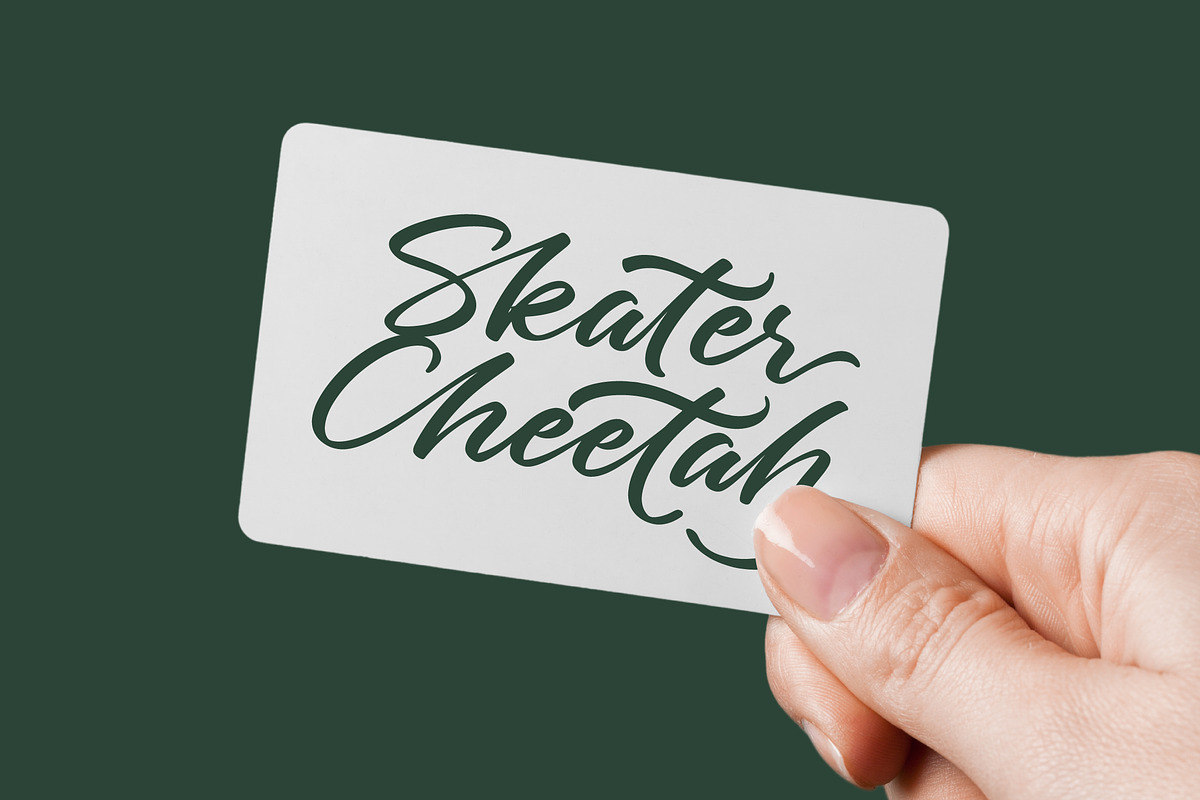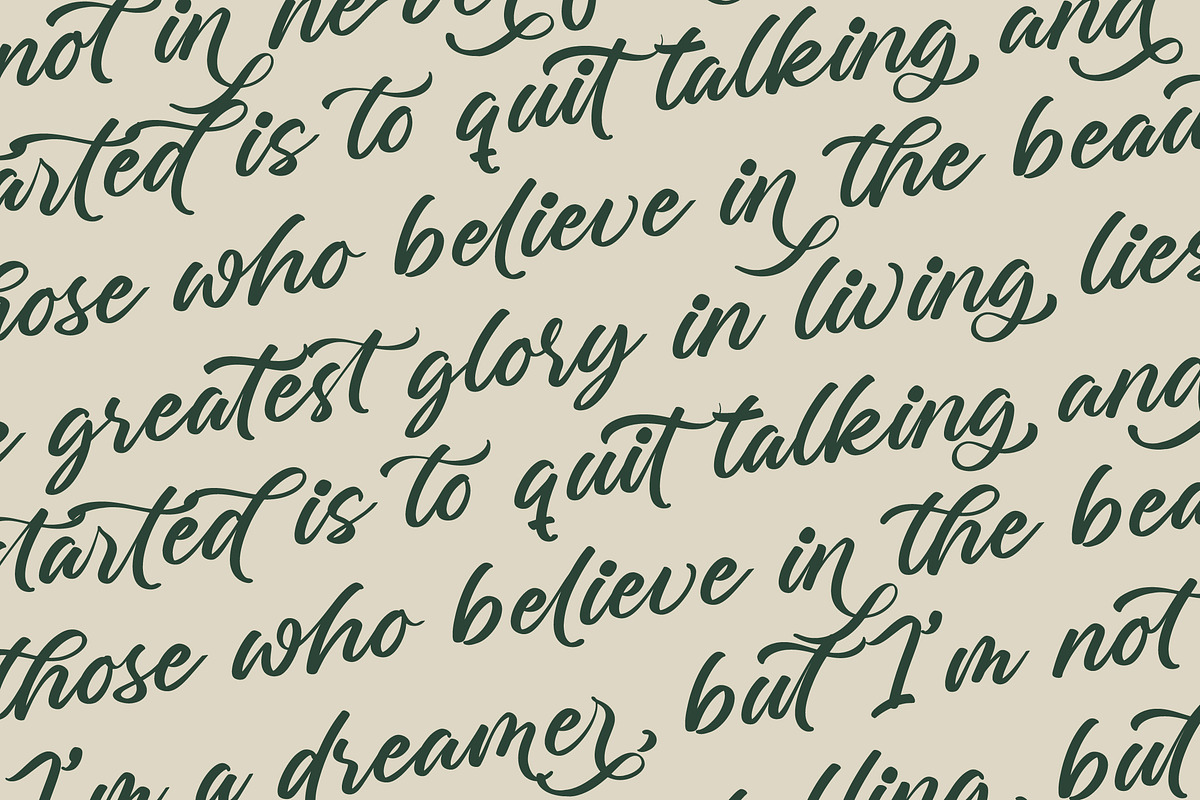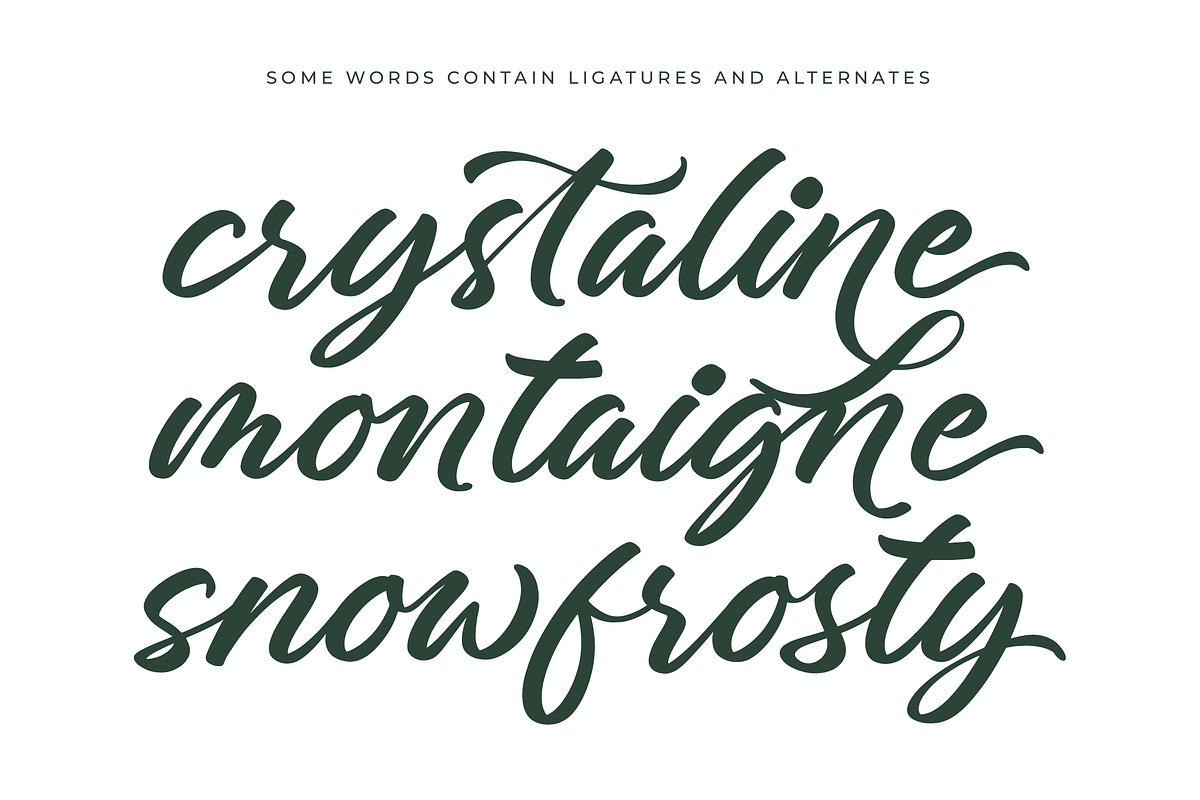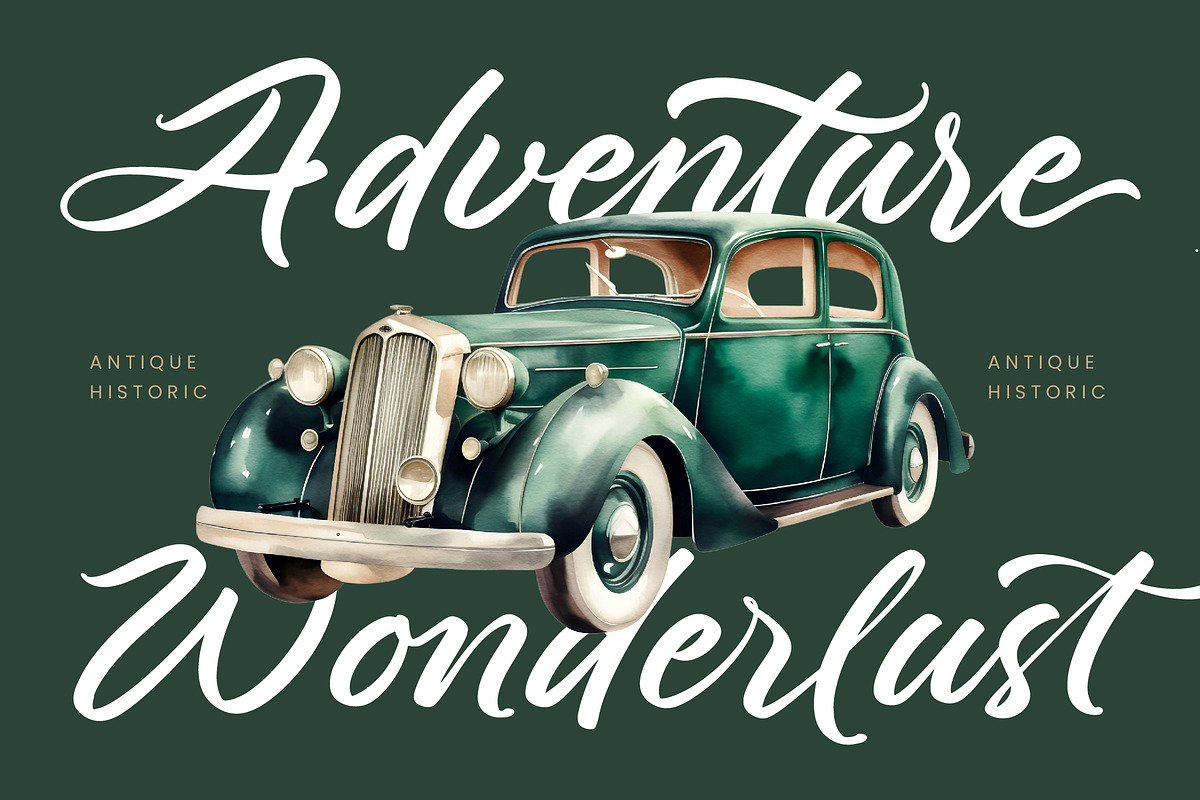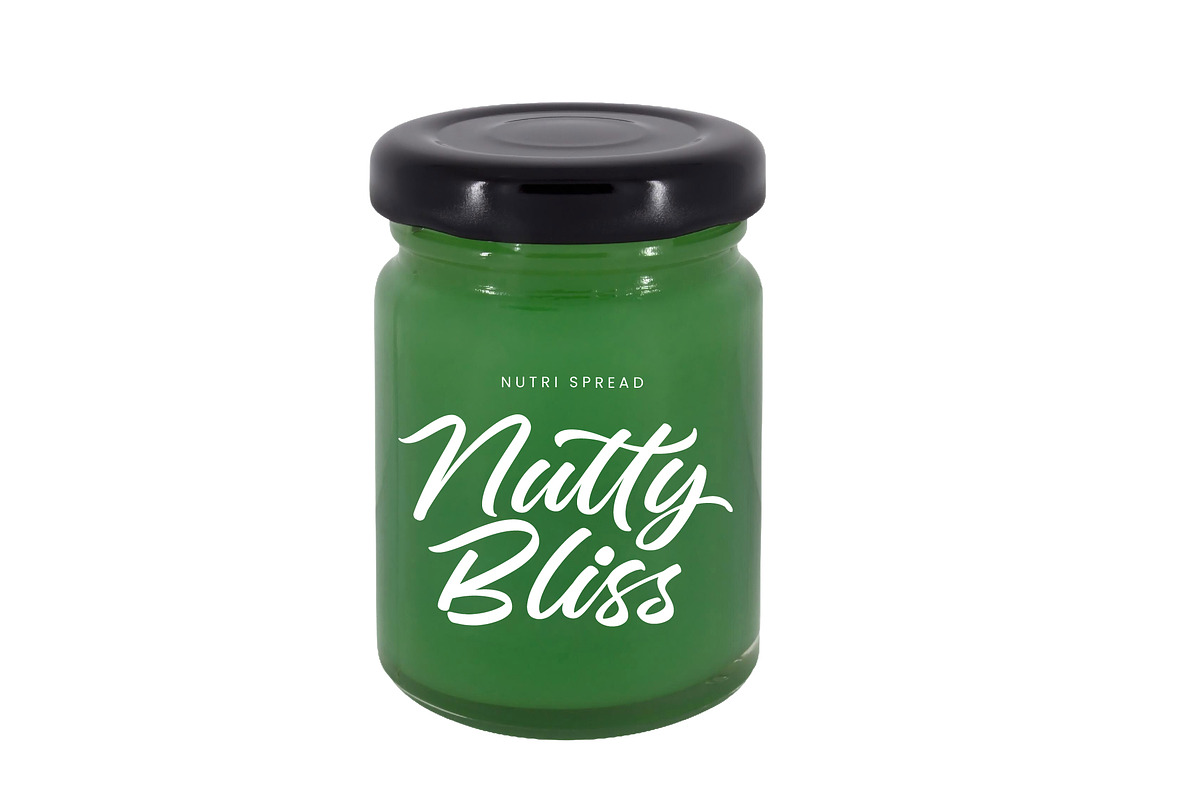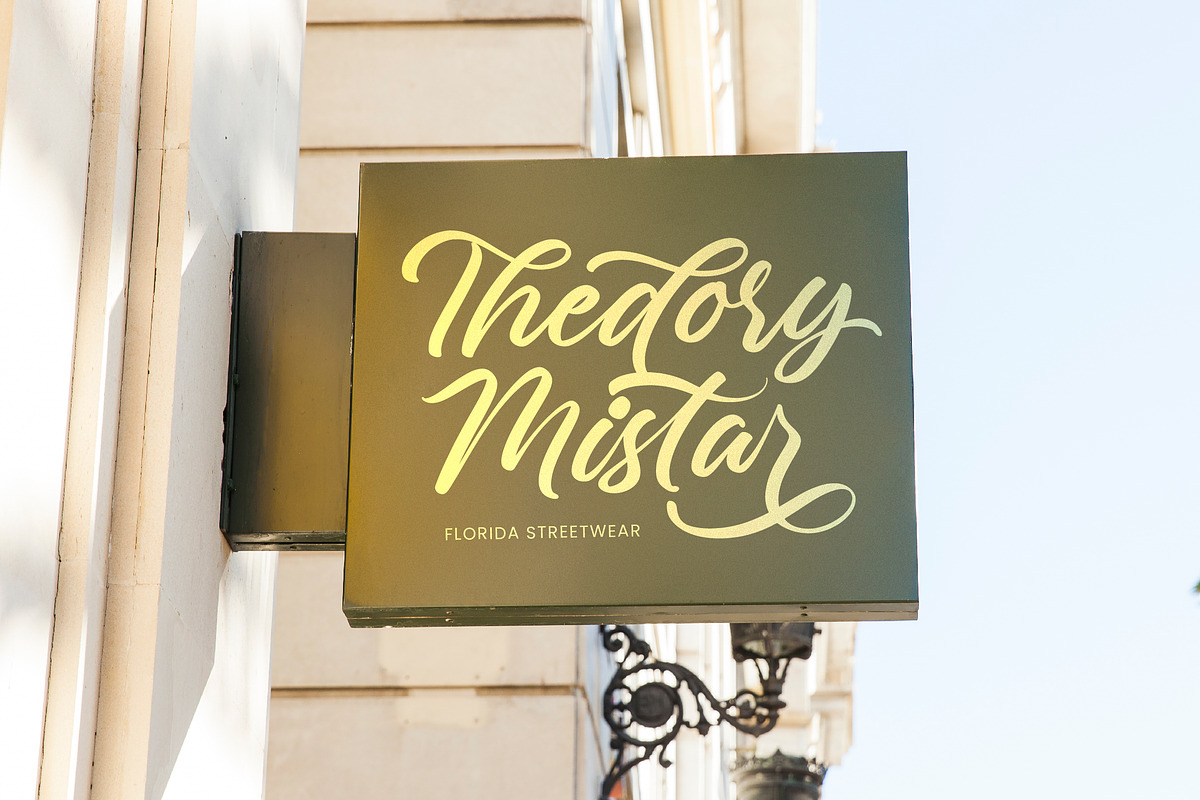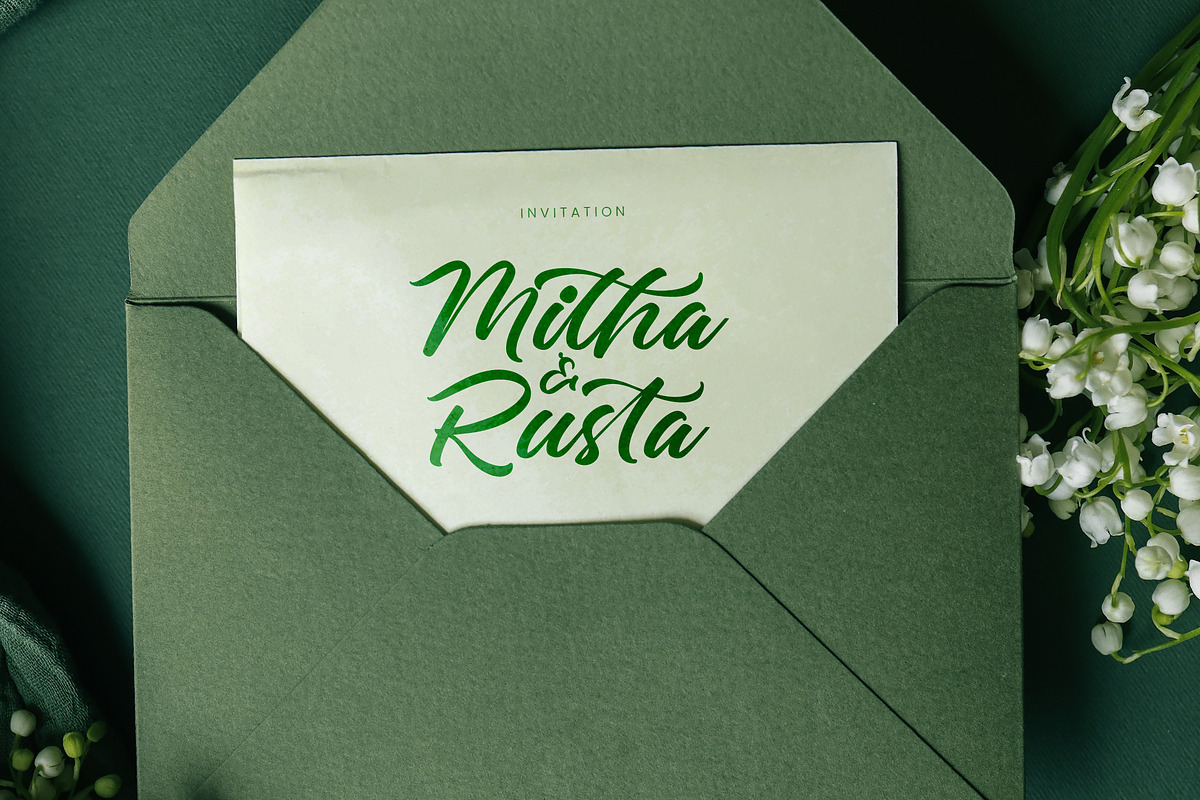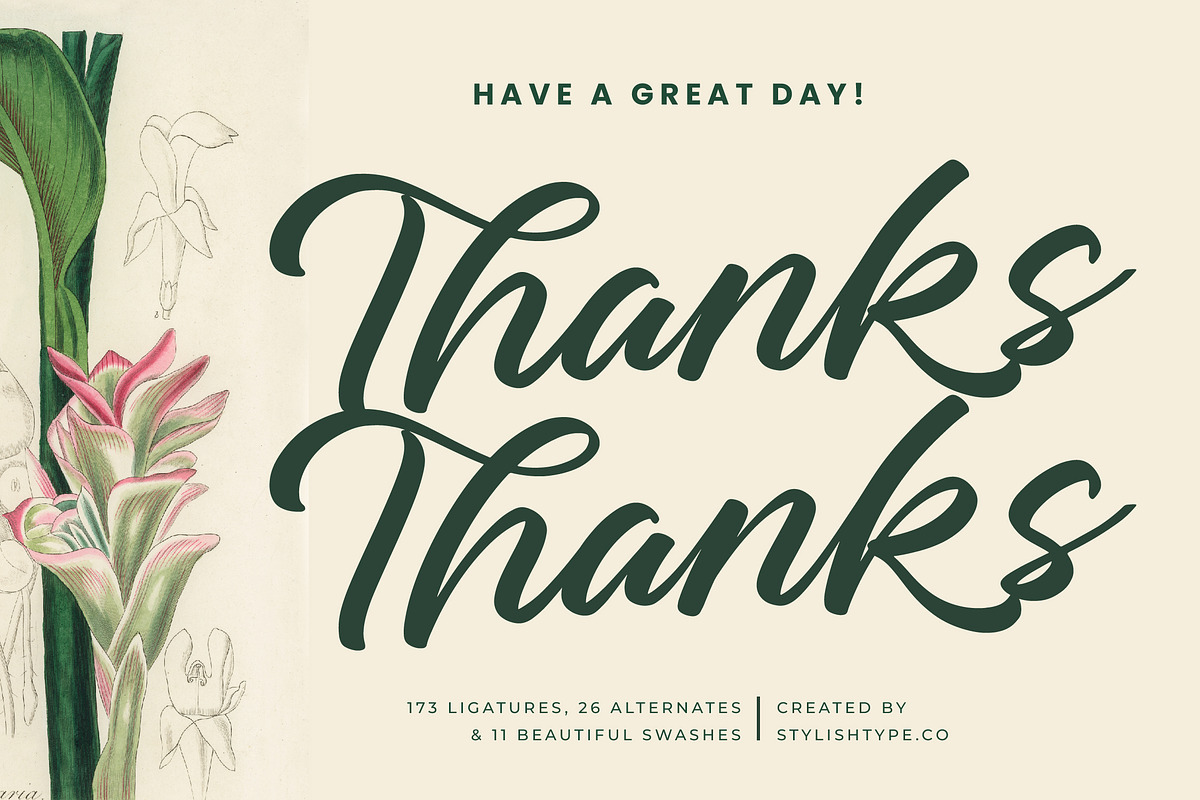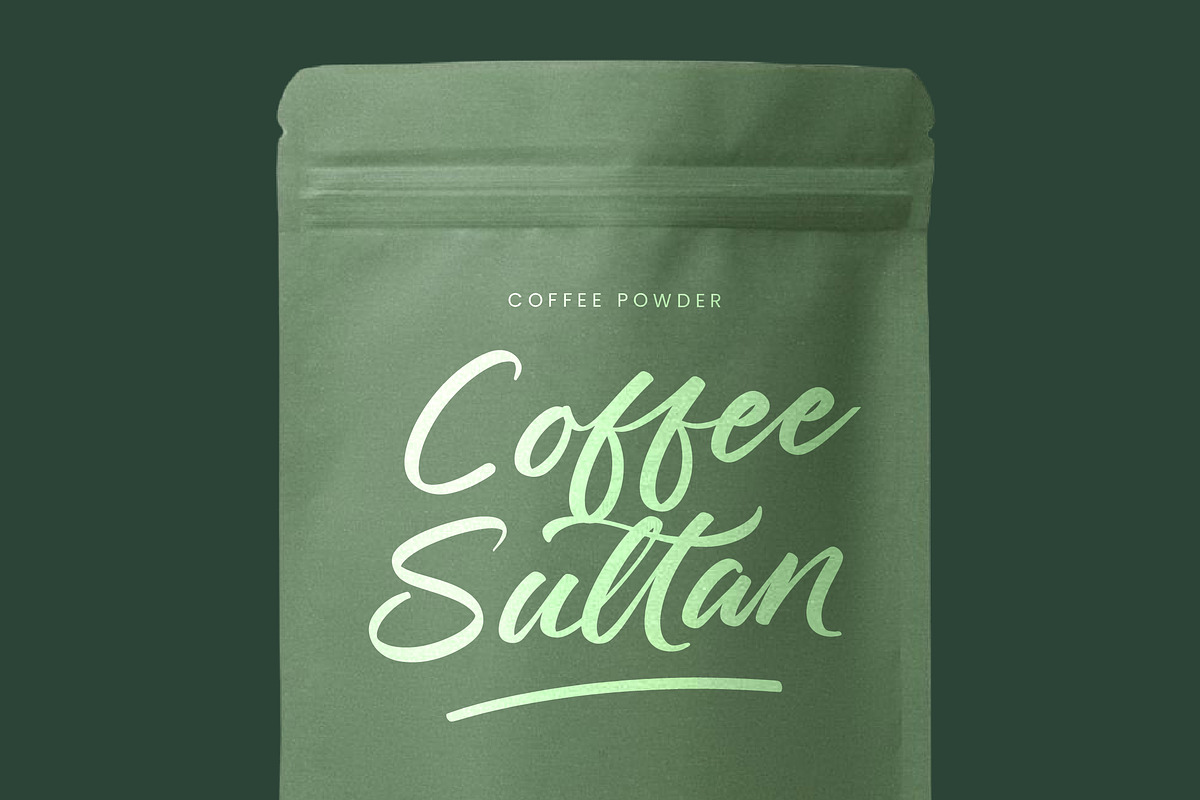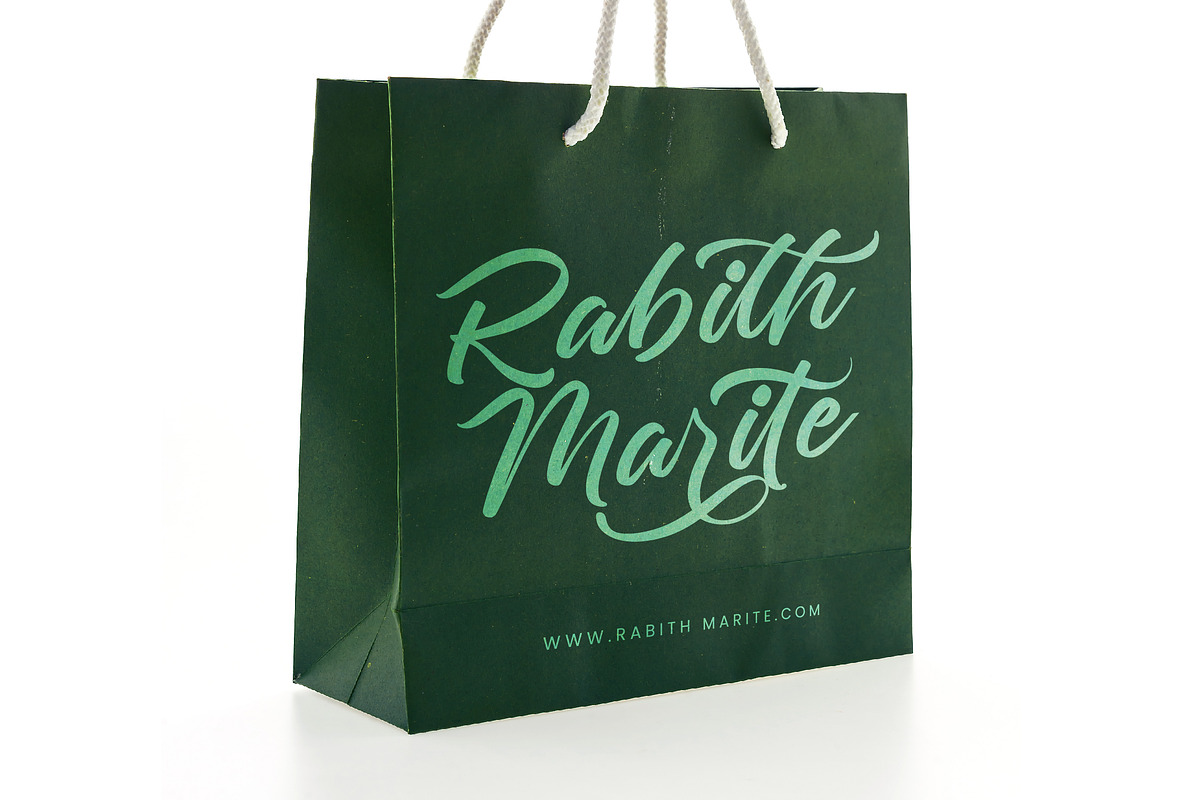
Charity Thomas Bold Calligraphy
Charity Thomas - Bold Calligraphy Font , from Stylishtype.Co , Suitable for any projects such as: logos, branding projects, homeware designs, product packaging, mugs, quotes, posters, shopping bags, t-shirts, book covers, name card, invitation cards, greeting cards, label, photography, watermark, special events, and all your other luxury and beautiful projects that need a Luxury Script taste.
- 173 Ligature 26 Alternates & 8 Swashes